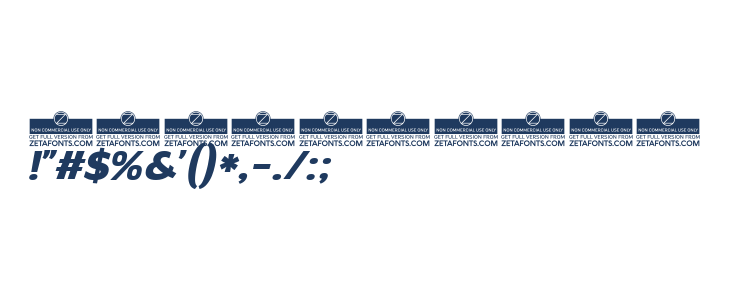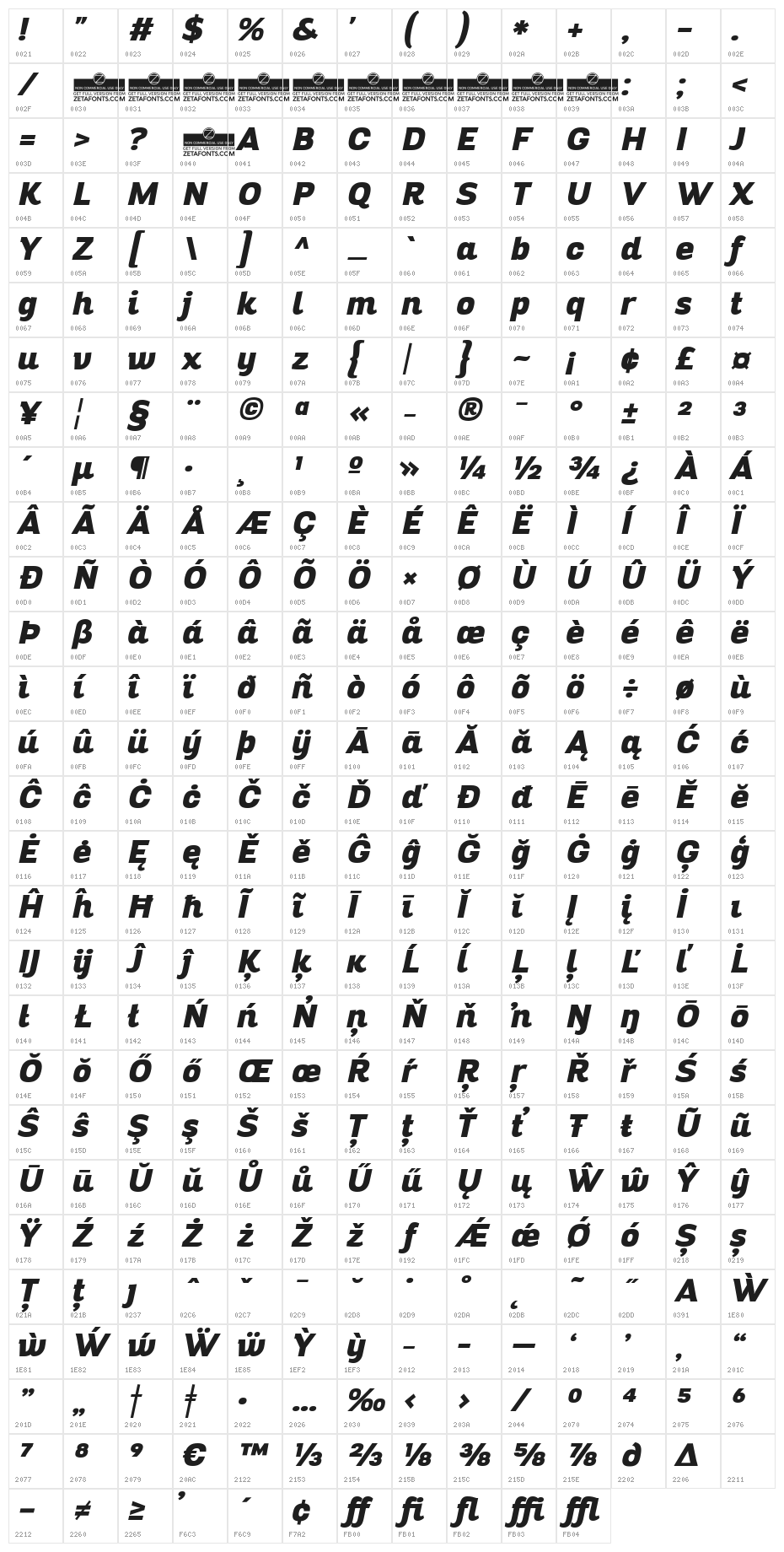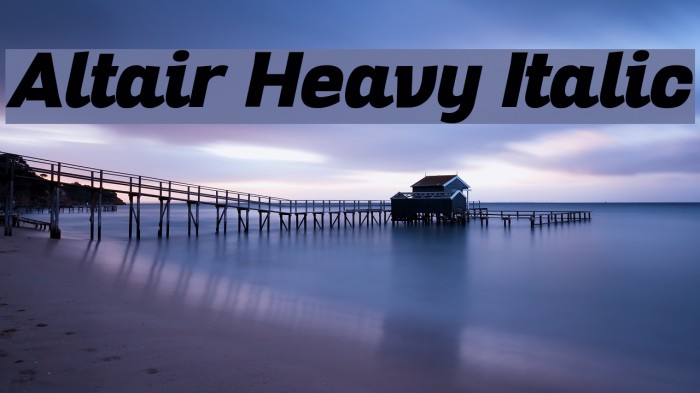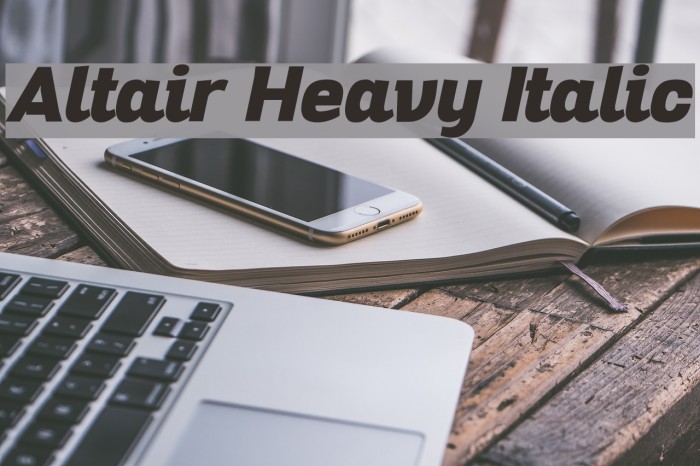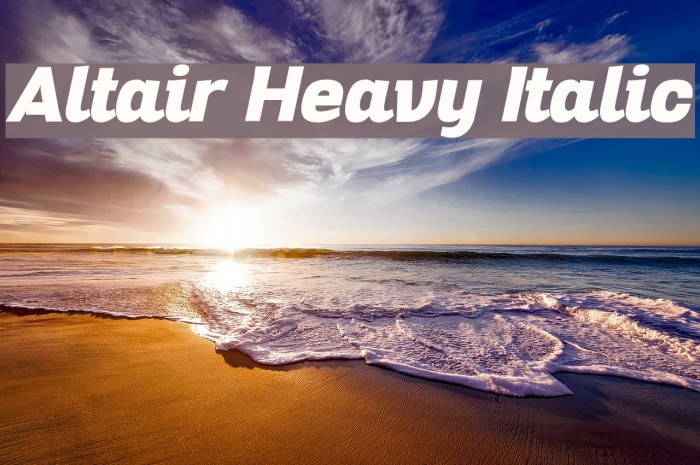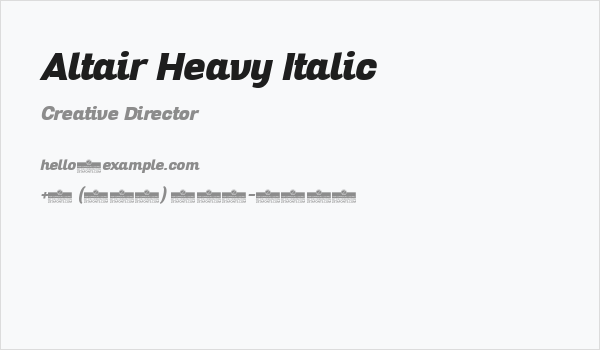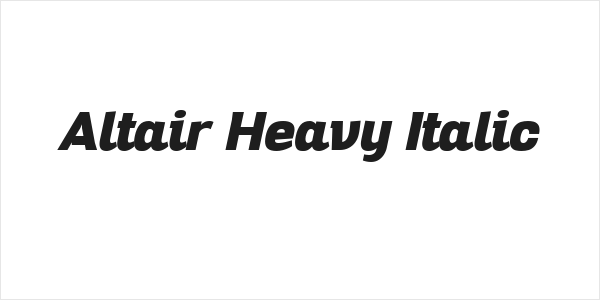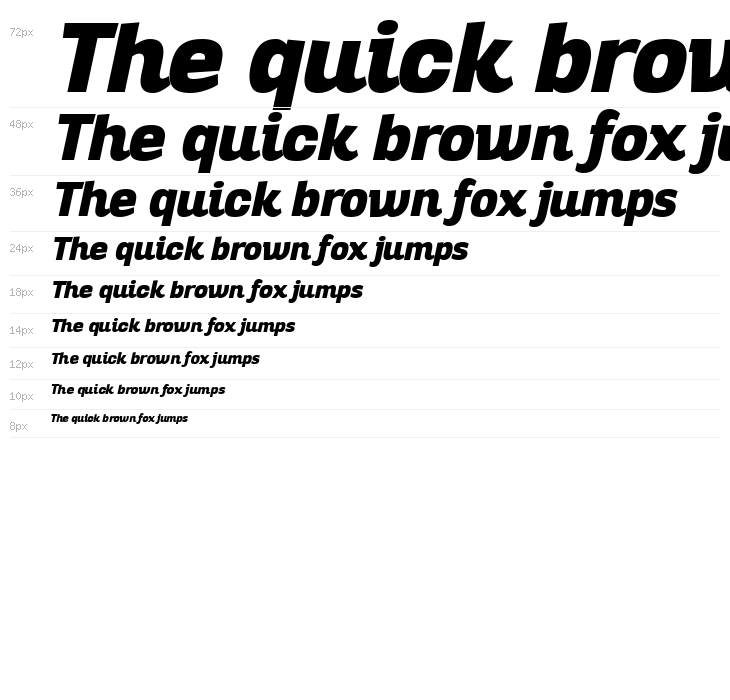
Altair Heavy Italic Font
Altair Heavy Italic Description
This font exhibits a bold and dynamic style with a pronounced italic slant, giving it a sense of movement and energy. The characters are robust and heavy, with consistent stroke thickness that conveys strength and impact. The uppercase and lowercase letters maintain a cohesive design, with rounded edges that soften the overall appearance. The numerals and special characters are crafted to match the boldness of the alphabet, ensuring uniformity across all glyphs. This font's design is both modern and assertive, making it suitable for attention-grabbing applications.
| Proposed Projects | Ideal for branding, advertising, headlines, and posters where a strong and energetic presence is desired. |